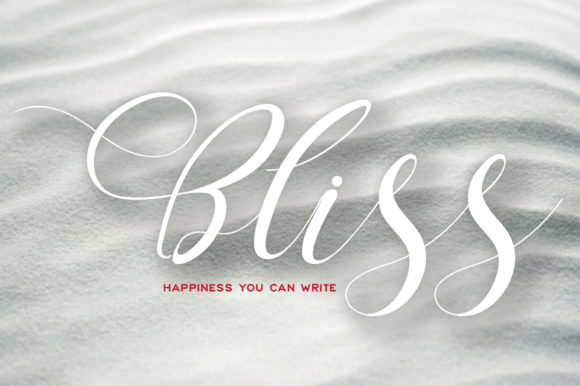
The Bliss Font: A Romantic Handwritten Script to Enchant Your Designs
I’ll never forget the time I was working on a wedding invitation project, and my client specifically asked for a font that would evoke a sense of romance and whimsy. I scoured the internet, tried out countless fonts, but nothing seemed quite right. That was until I stumbled upon the Bliss font. ✨ This enchanting handwritten script has since become a staple in my design toolkit, and I’m excited to share its charm with you.
An Honest Review of Bliss Font
What I Love About Bliss Font
- 💕 Romantic and whimsical feel that’s perfect for wedding invitations, greeting cards, and other special occasions
- ✅ Highly versatile and can be used for both headlines and body text
- 🎨 Beautifully crafted with intricate details and subtle imperfections that give it a handmade feel
- 🌈 Wide range of applications, from digital designs to print materials
While the Bliss font is truly delightful, there are a few things to keep in mind: 🤔
- ⚠️ Some characters may not work well in all contexts, so it’s essential to test the font thoroughly
- 😐 Limited availability of certain OpenType features, which might limit its use in certain design software
The Story Behind Bliss Font
The Bliss font was designed by a talented typographer who wanted to create a font that would evoke a sense of romance and wonder. Inspired by the intricate details of handwritten calligraphy, the designer carefully crafted each character to ensure a beautiful, flowing script that would add a touch of magic to any design.
| Font Name | Bliss Font |
| Author | pointsandpicas |
Q: What is the Bliss font best used for?
A: The Bliss font is perfect for designs that require a romantic, whimsical feel, such as wedding invitations, greeting cards, and other special occasions.
Q: Is the Bliss font suitable for body text?
A: While the Bliss font is beautiful, it’s best used in moderation. For longer blocks of text, a more traditional font might be more readable.
Q: Is the Bliss font available in different styles or weights?
A: Currently, the Bliss font is available in a single style, but its versatility and range of applications make it a great addition to any design toolkit.